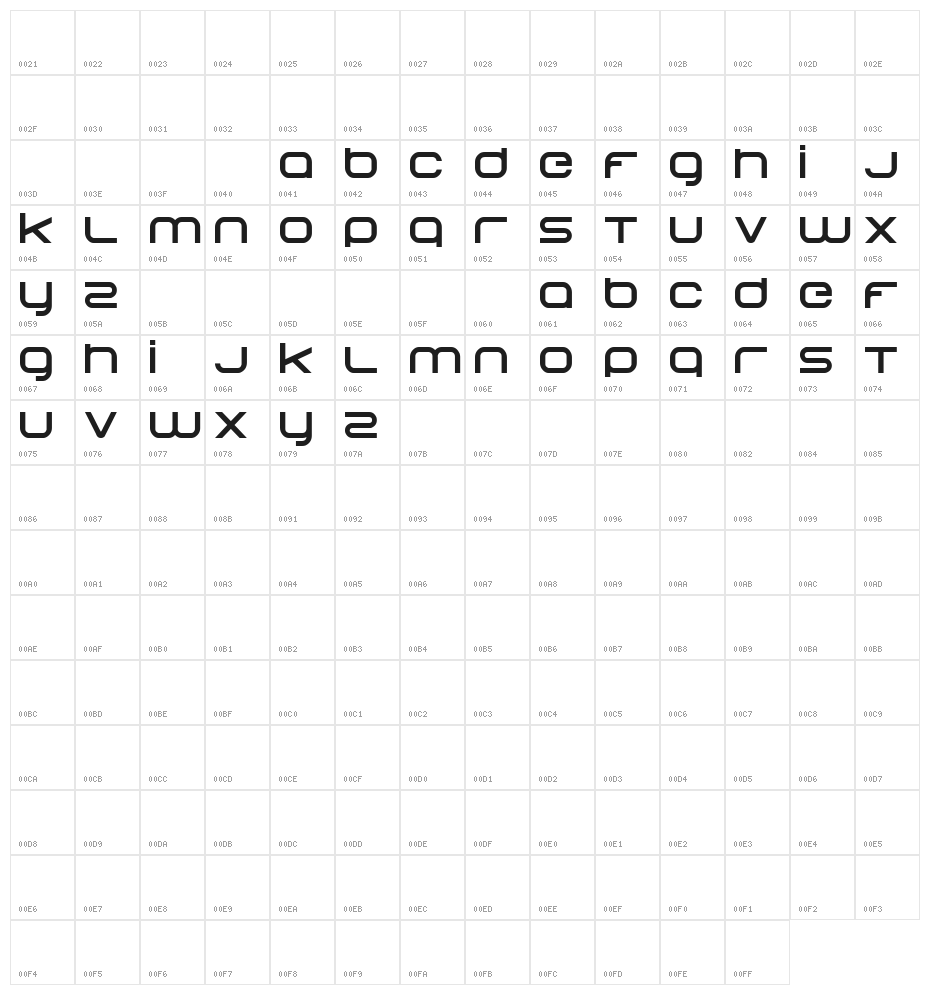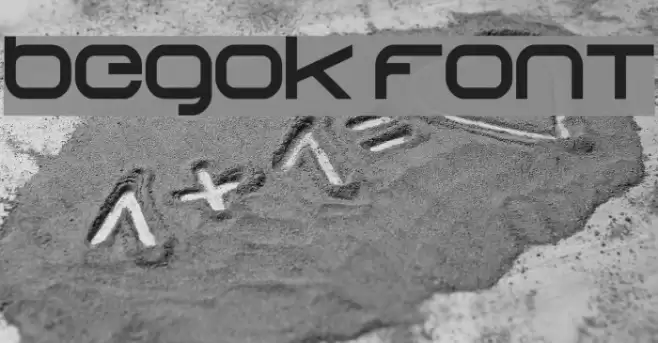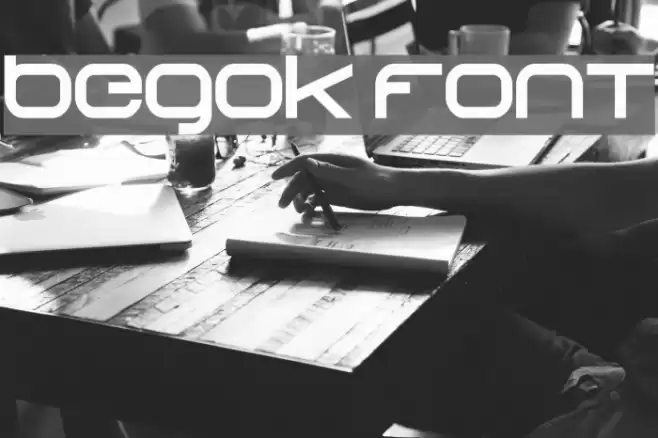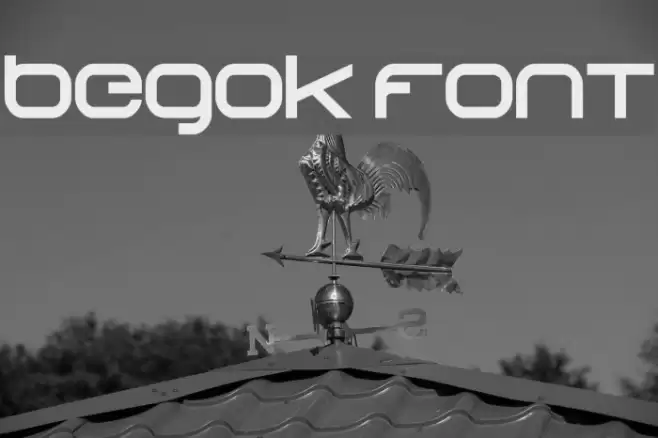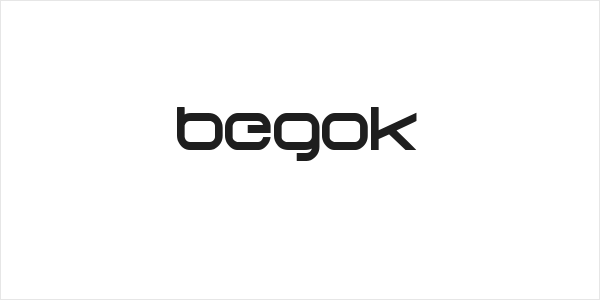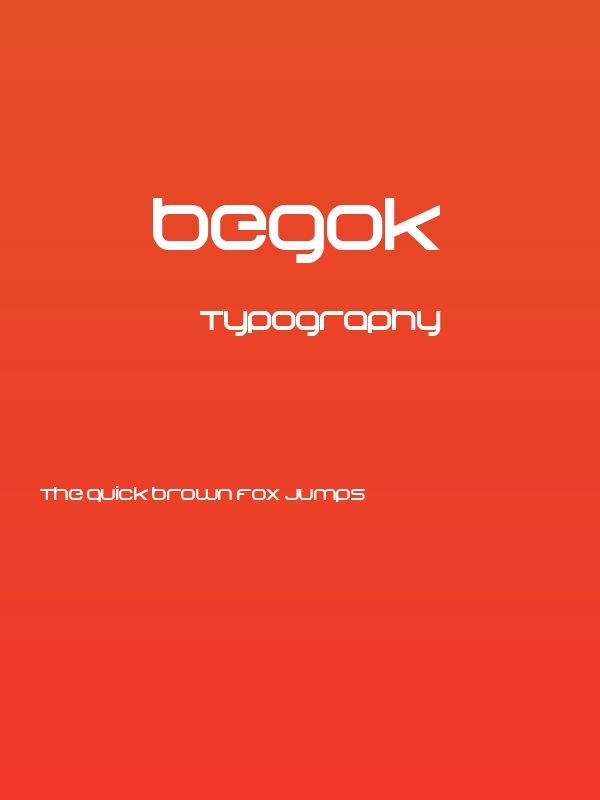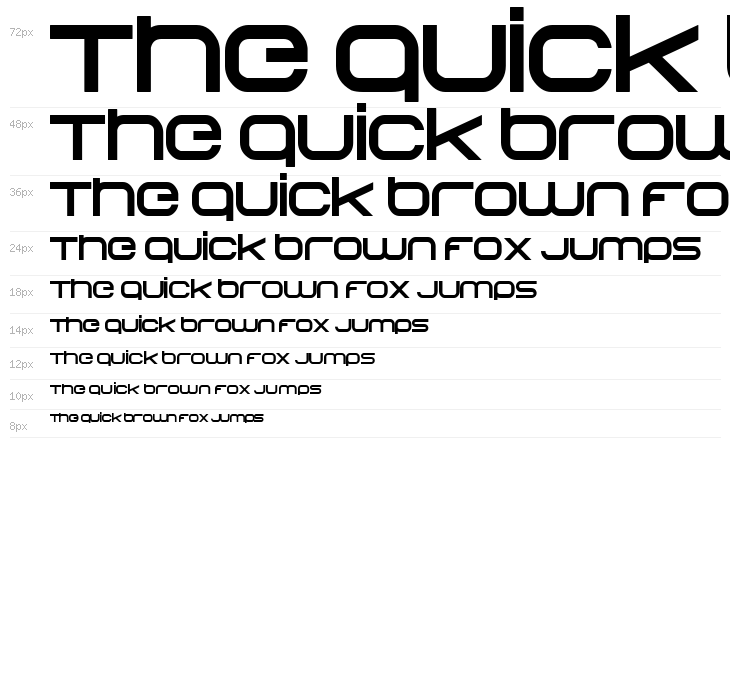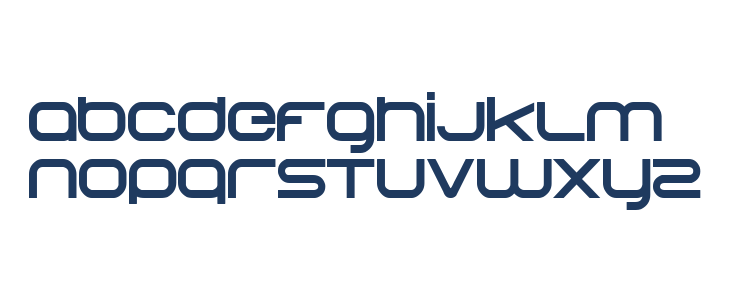
Begok Font
Begok Description
This font showcases a futuristic and geometric design, characterized by its clean lines and rounded edges. The uniformity in stroke width gives it a sleek and modern appearance, making it ideal for digital and tech-related projects. The characters are well-balanced, with a consistent height and width that enhances readability. The design is minimalistic yet distinct, with a unique flair in the curvature of certain letters, such as 'a', 'g', and 's'. This font's style is both contemporary and versatile, suitable for a variety of applications where a modern aesthetic is desired.